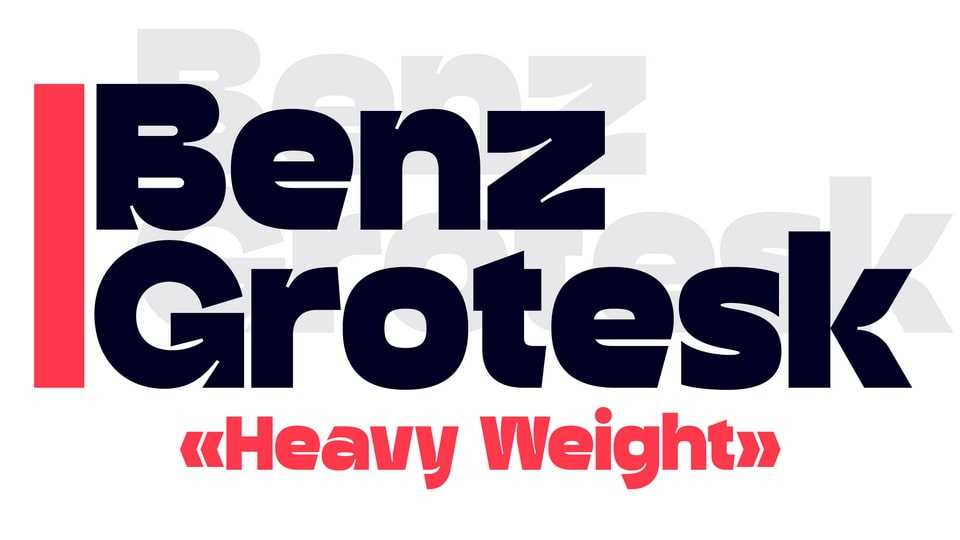
Download Benz Grotesk font, a contemporary sans serif typeface that has a fairly high detail with inktraps on some corners of the body. Benz Grotesk can be used to style text that requires attention in a sentence but still has subtlety.
Designer: SIGN Studio